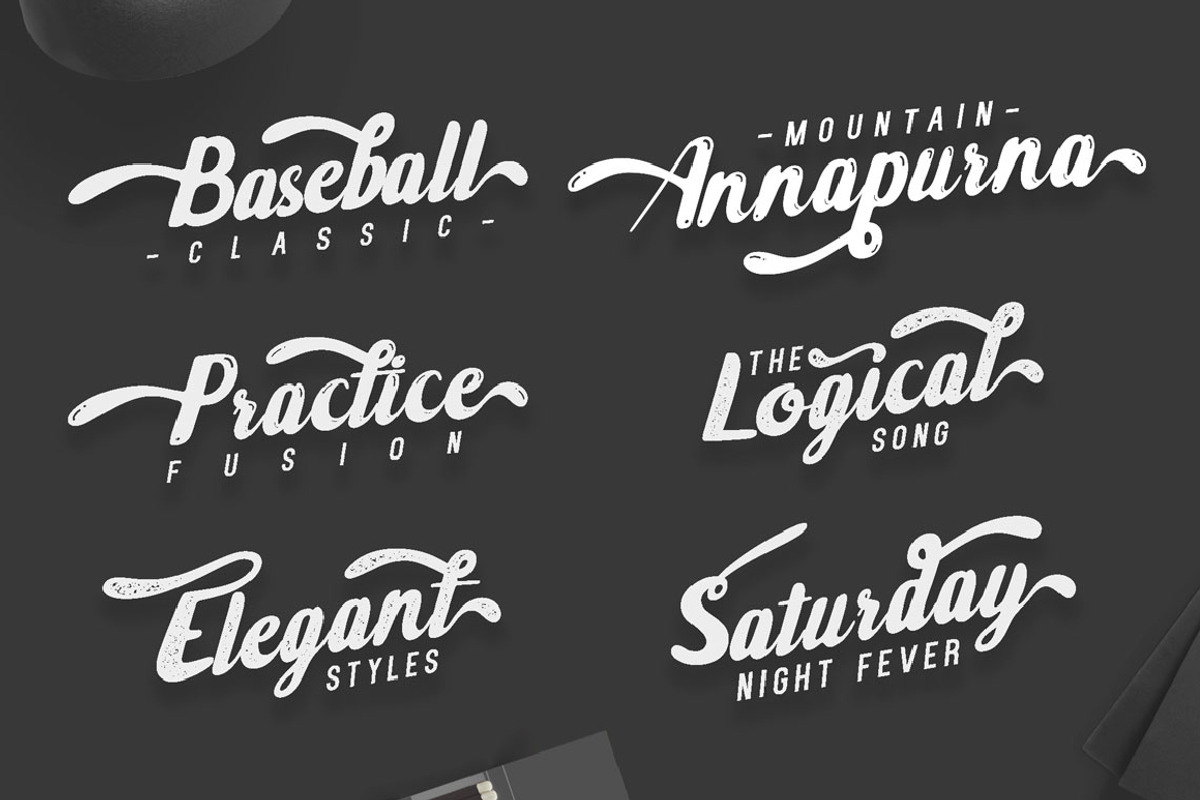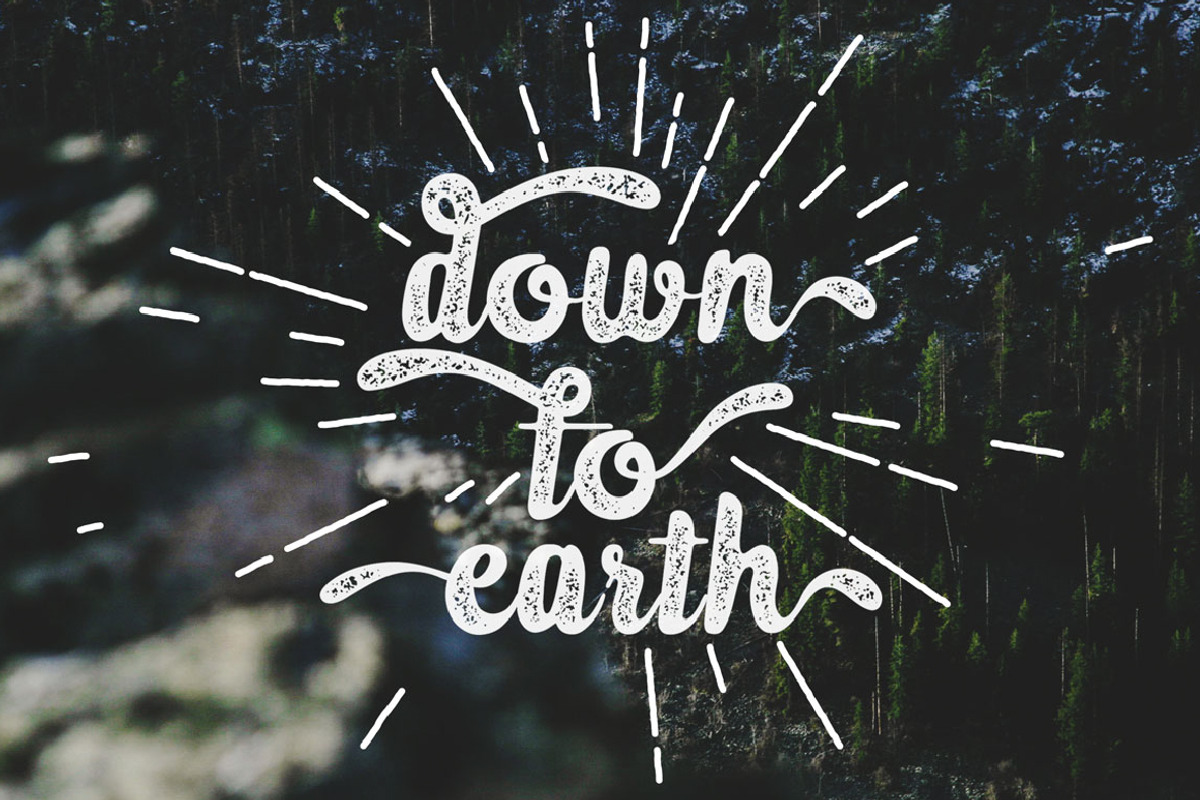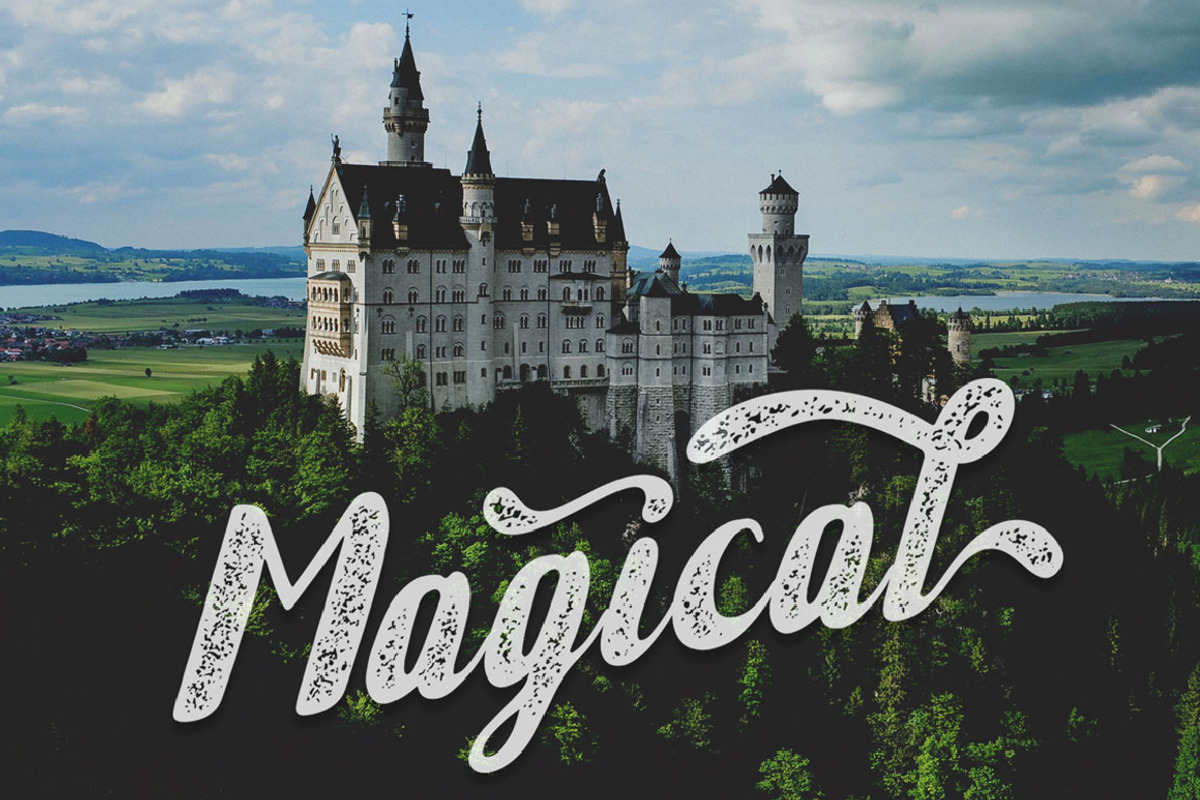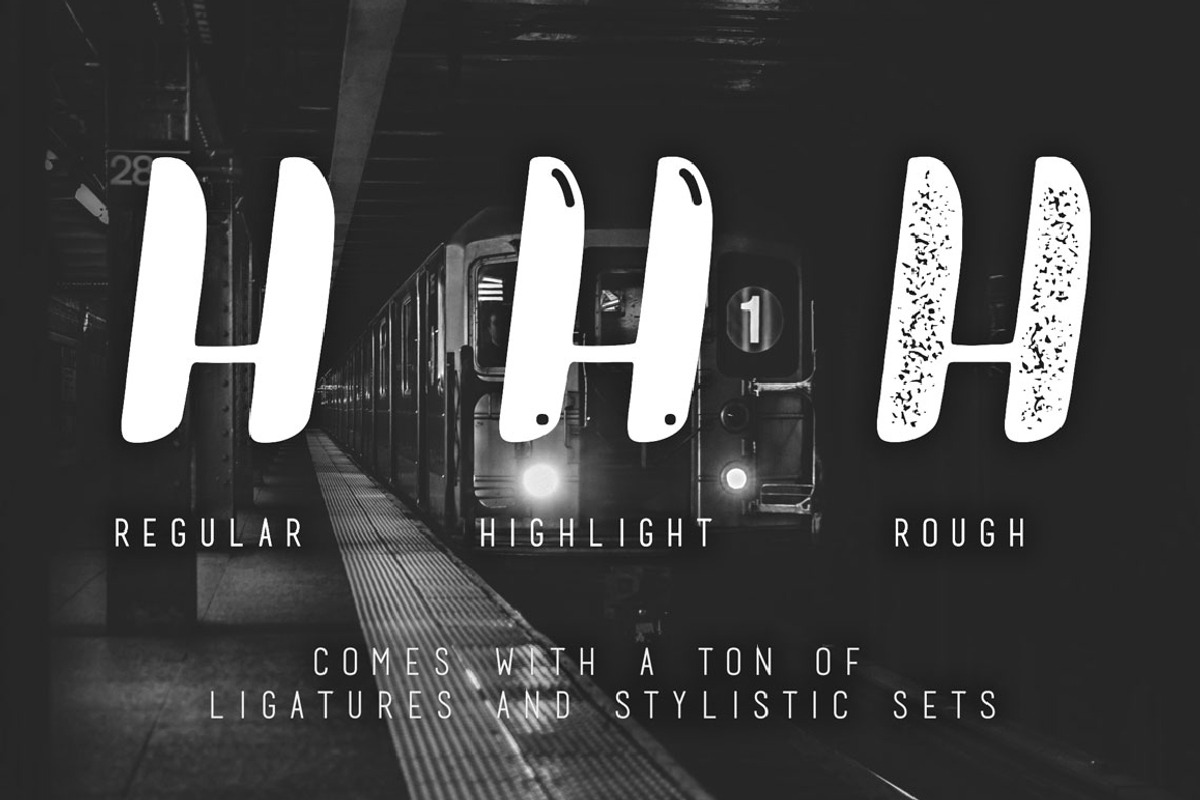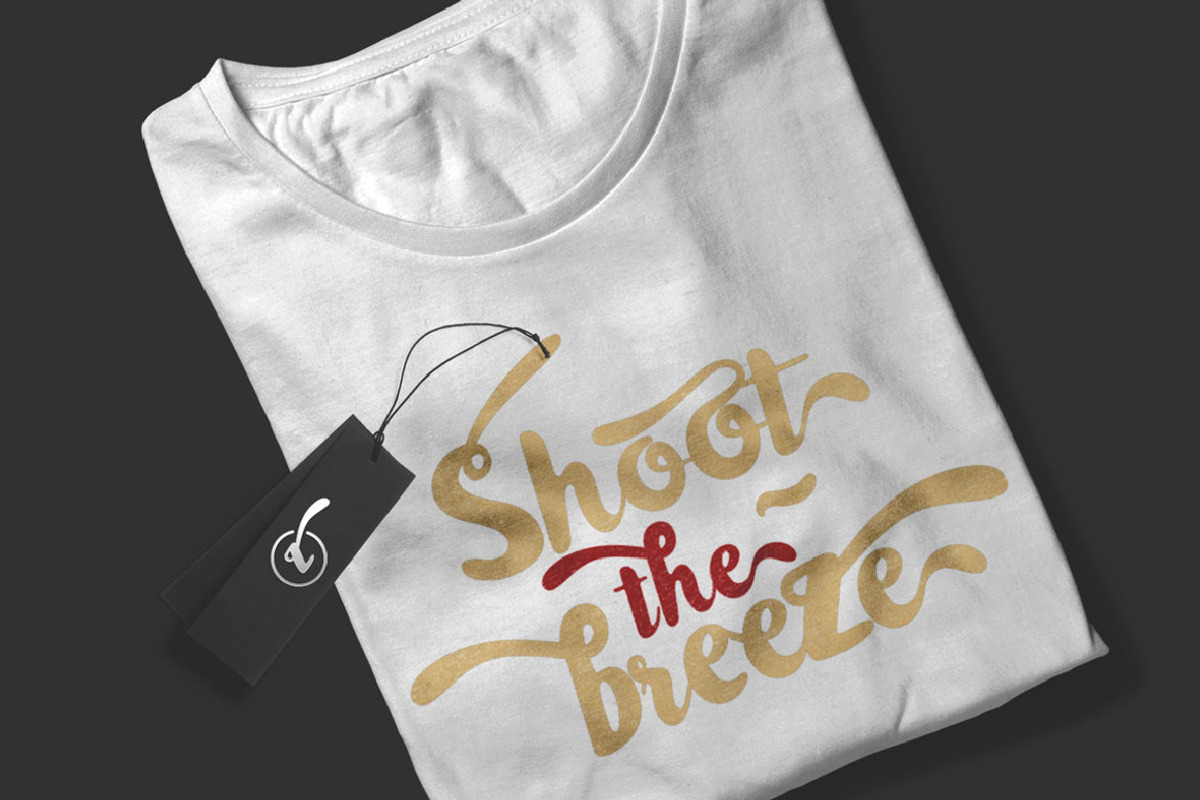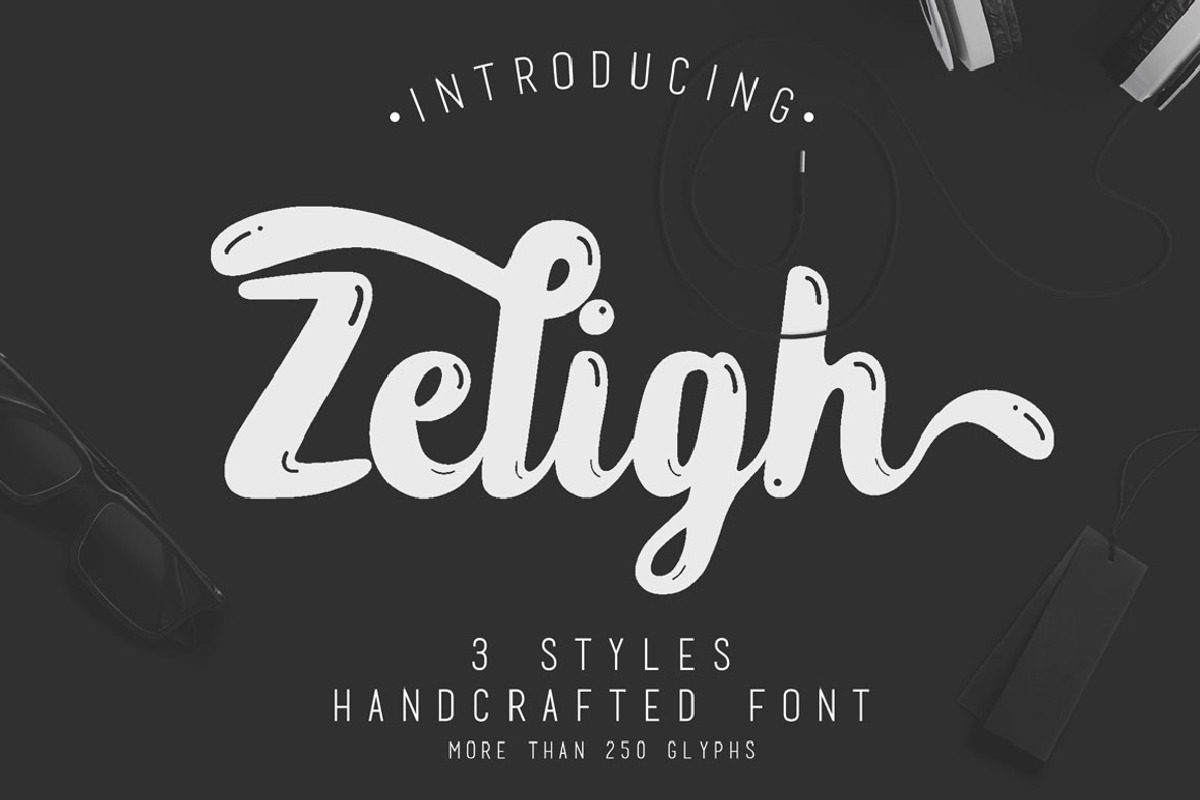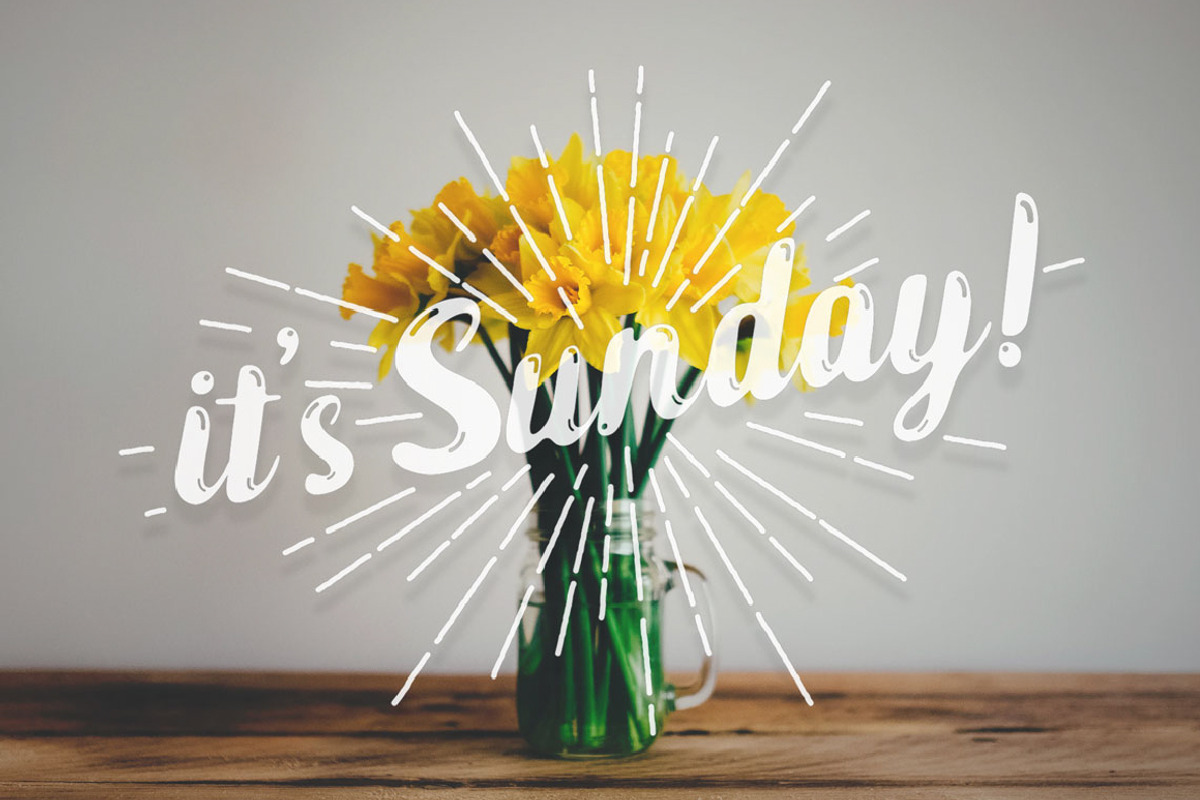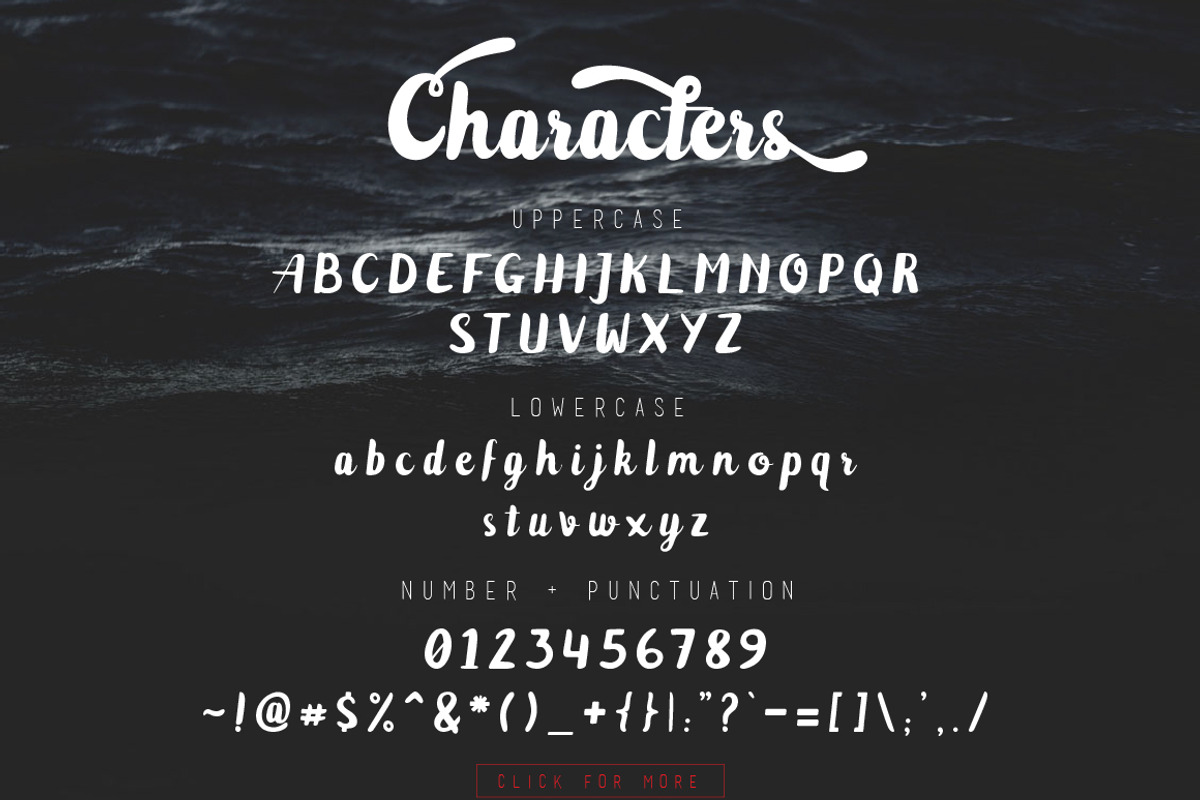
Zeligh Font
Meet Zeligh! A bold connected script and dynamic handcrafted font, comes with 3 styles.
Zeligh comes with uppercase, lowercase, numerals, punctuations, a ton of ligatures and stylistic sets to let you costumize your creative design work.
Zeligh is perfect for hand lettering projects, typography work, branding, logotype, apparel design, poster and MORE!
- Stylistic Set for Alternates of Uppercase & Lowercase